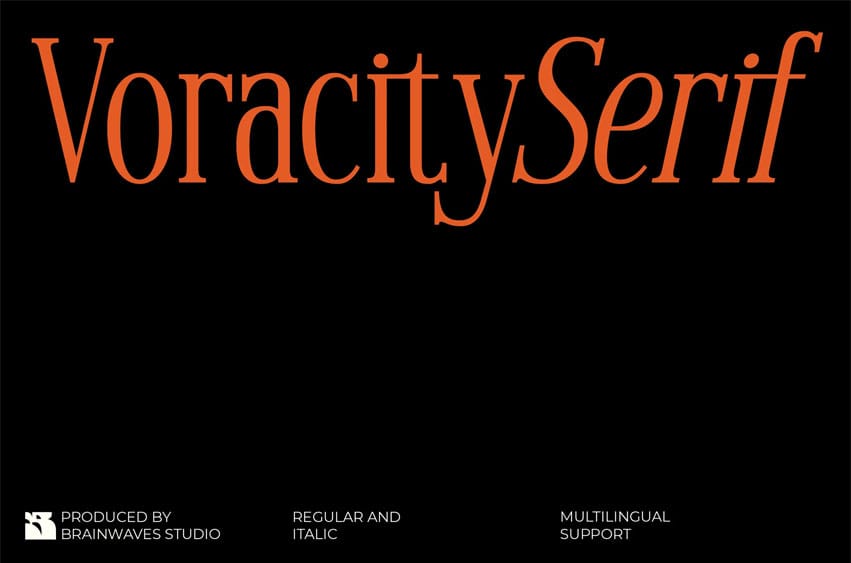
Voracity Serif Font is a timeless serif font with a sleek, modern feel. This font is the perfect solution for designs requiring luxury, sophistication, and professionalism. Voracity Serif is more than just a typeface—it’s a statement of style.